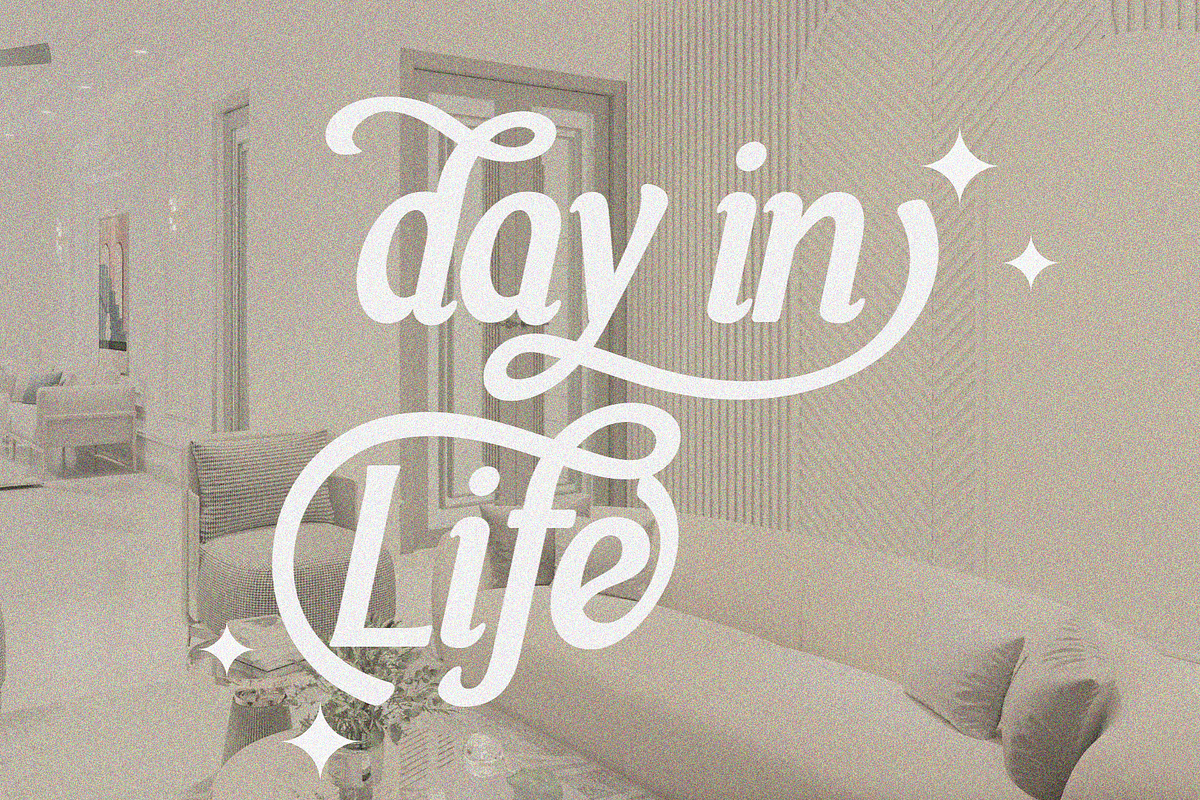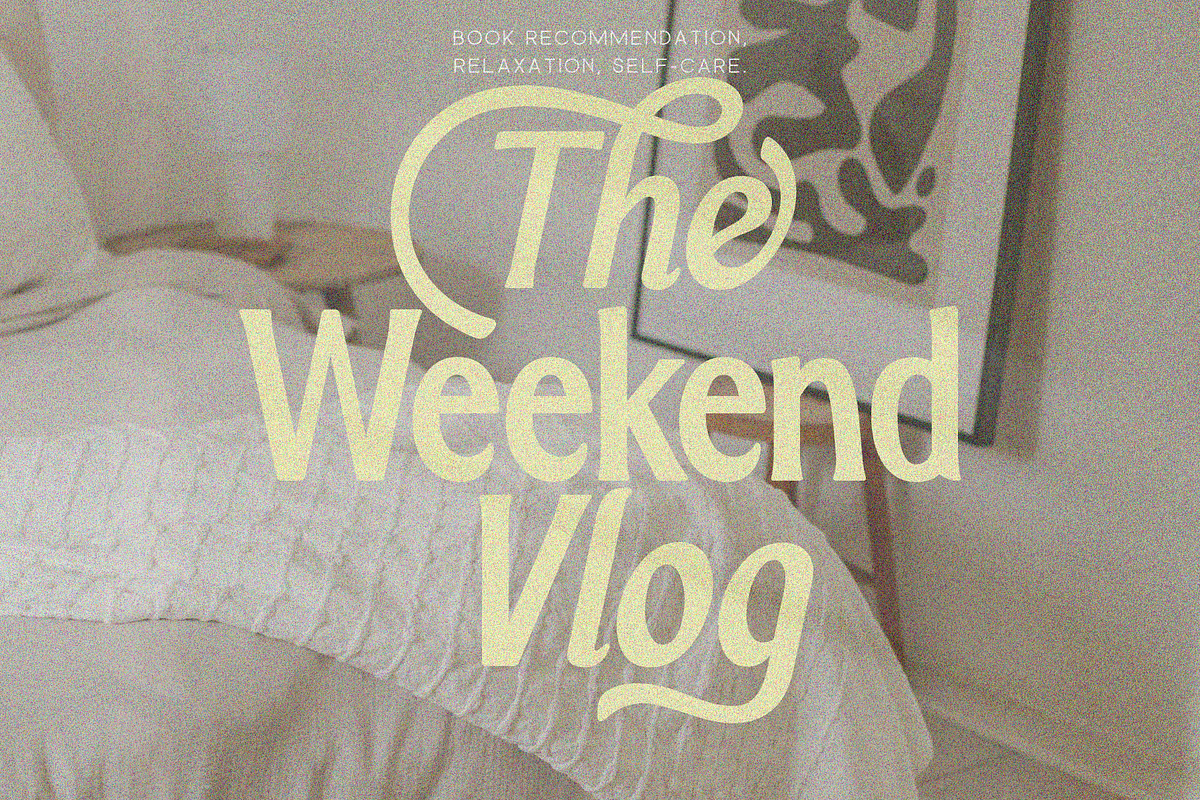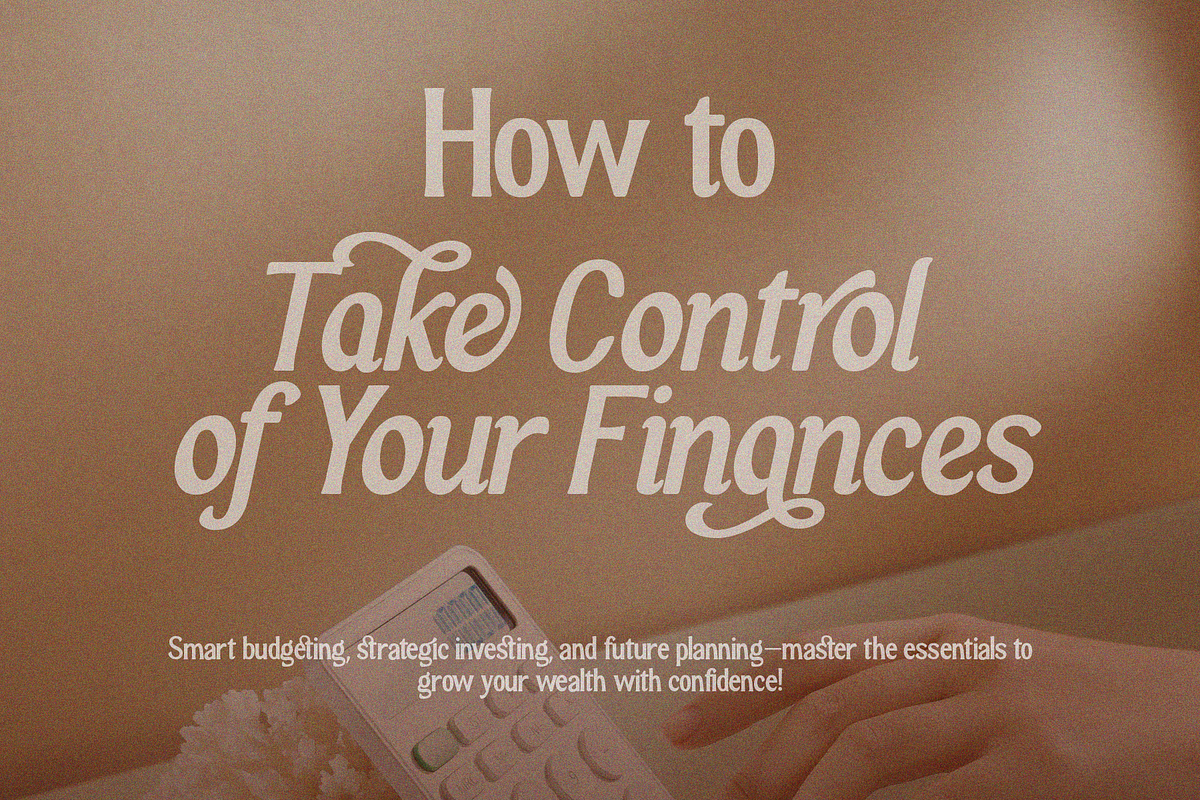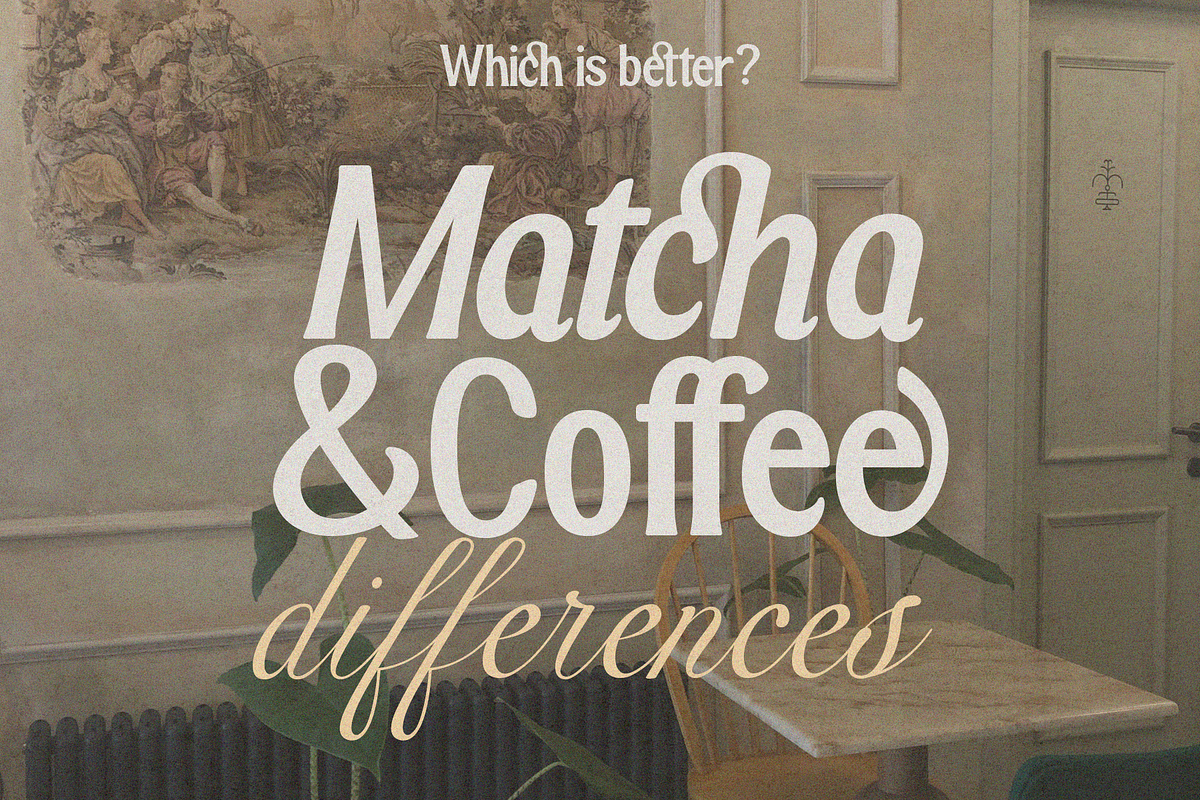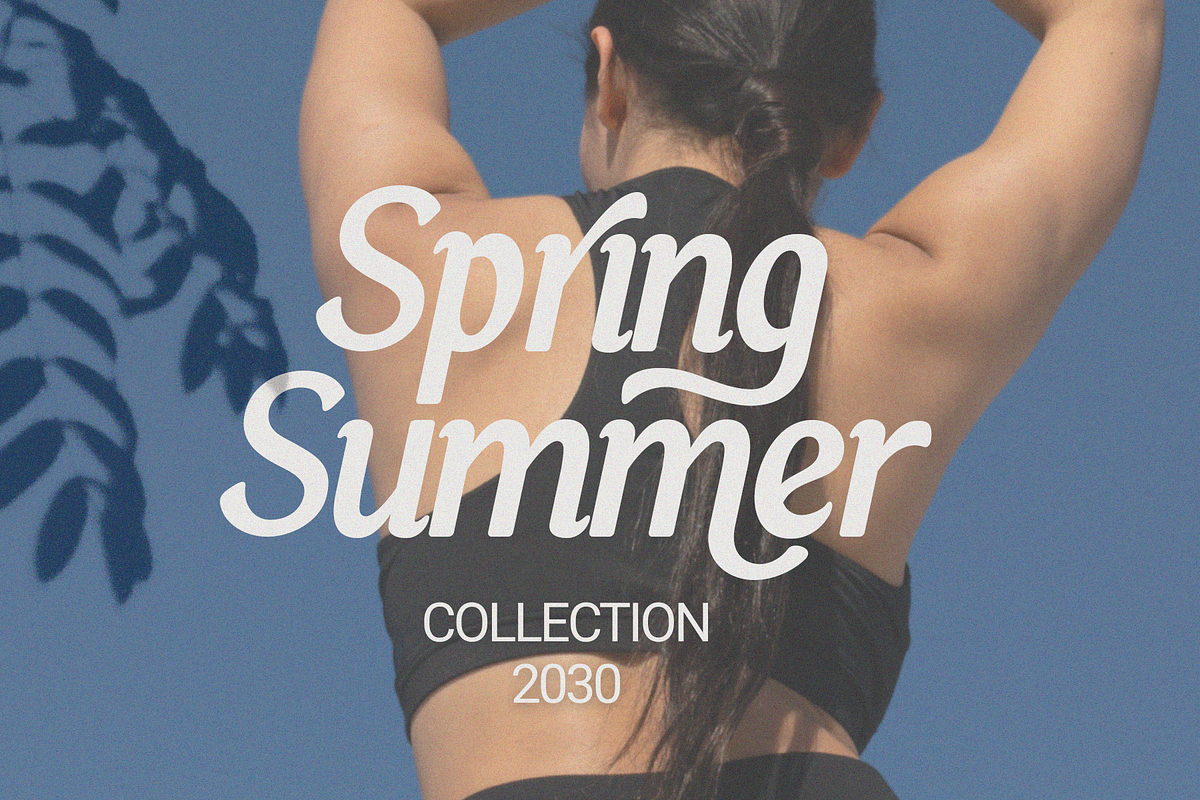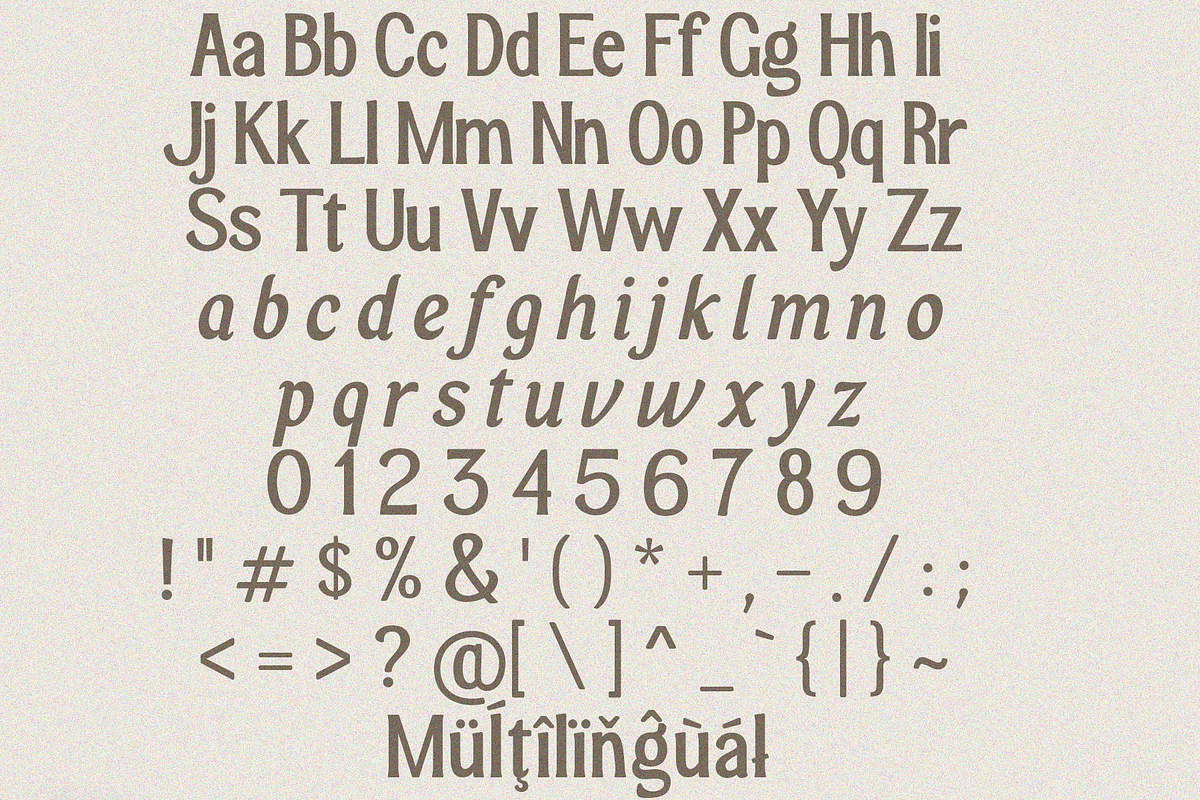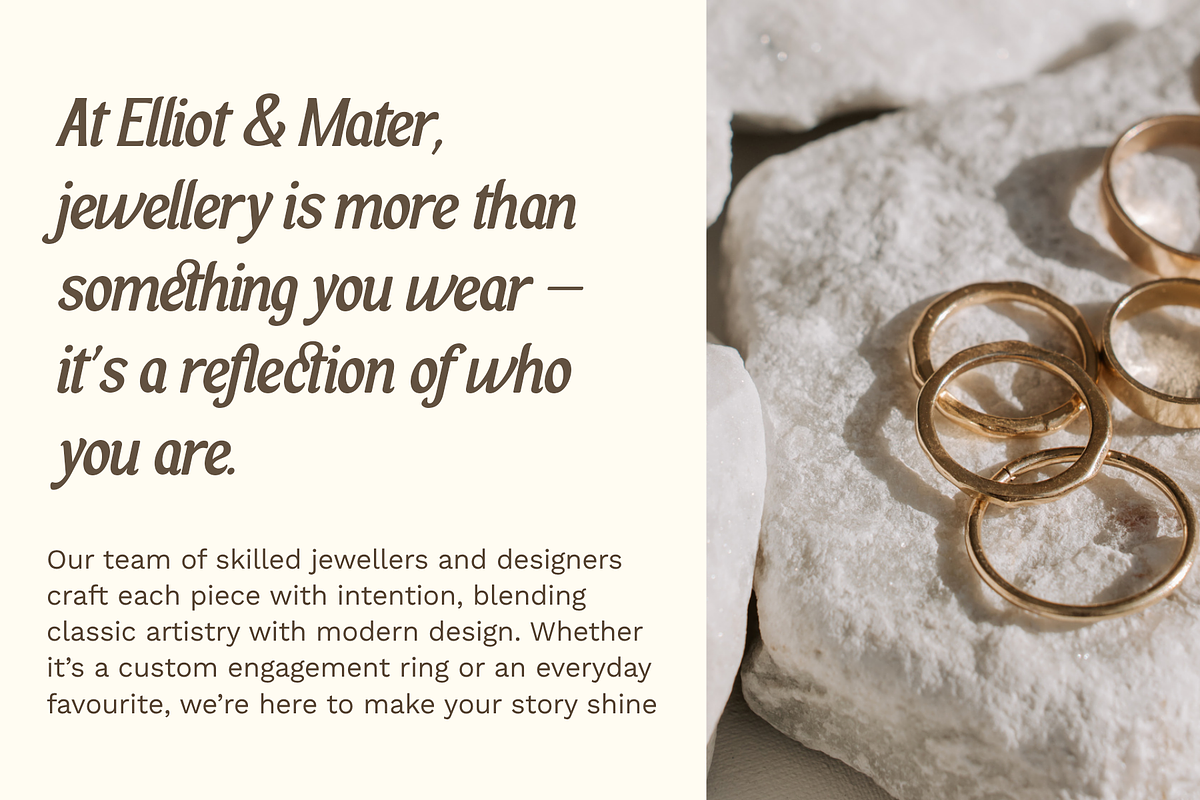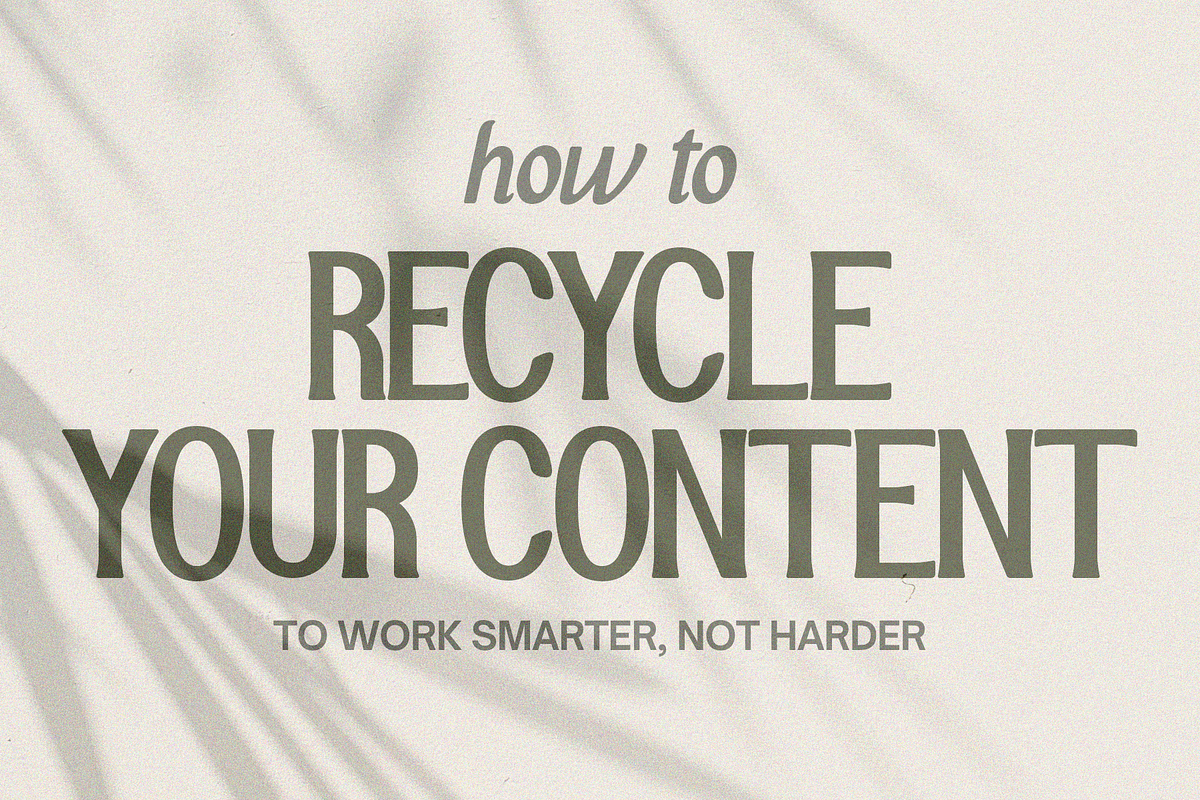
Lifoske Serif Font
Lifoske is a modern display serif font that blends elegance, softness, and artistic personality into one refined typeface. Designed with graceful curves, stylish ligatures, and distinctive italic forms, Lifoske creates a luxurious visual rhythm that feels both classic and contemporary. Perfect for branding, editorial layouts, packaging, logos, wedding designs, social media, and premium typography projects.
With its smooth Regular and expressive Italic styles, Lifoske offers flexibility for designers who want to create sophisticated and memorable compositions. Every letter is carefully crafted to deliver balance, readability, and a unique aesthetic character that stands out beautifully in both large headlines and creative visual presentations.
\- Character set A-Z
\- Uppercase & Lowercase
\- Numerals & Punctuation
\- Accented Characters (West Europe)